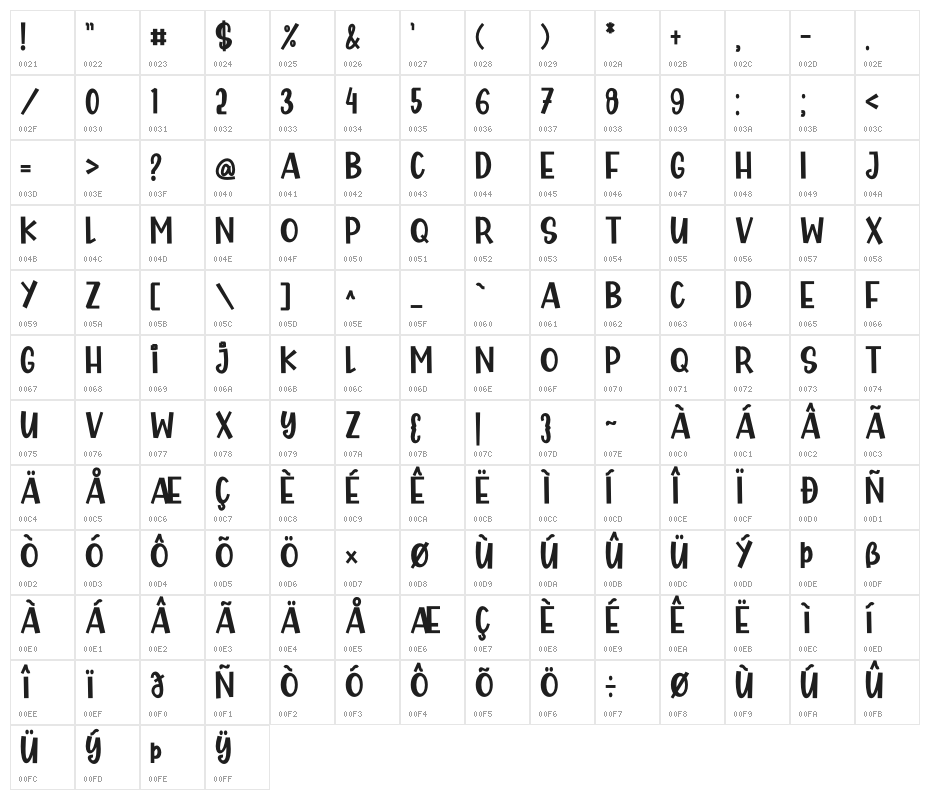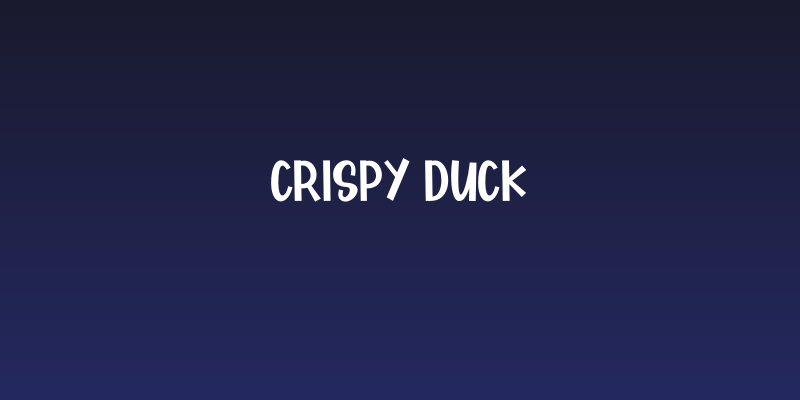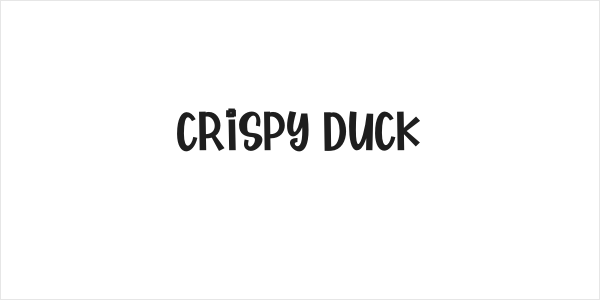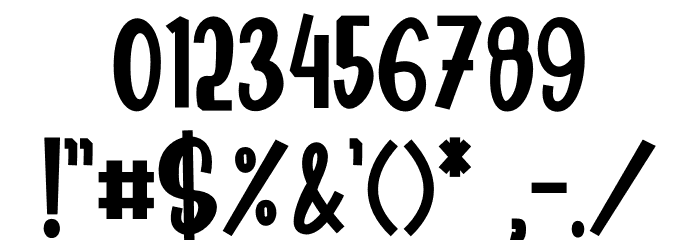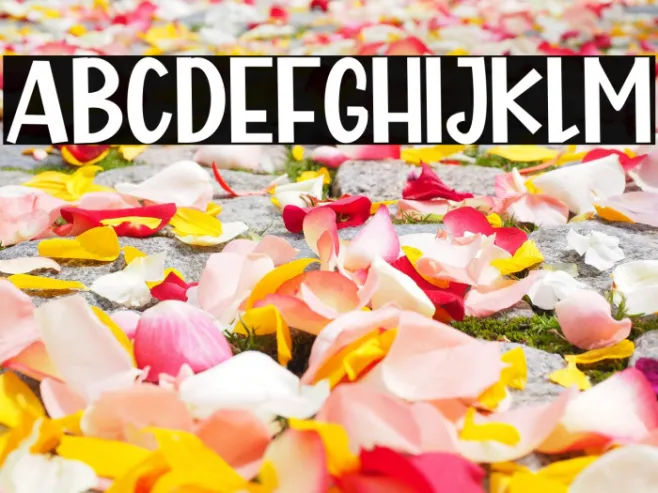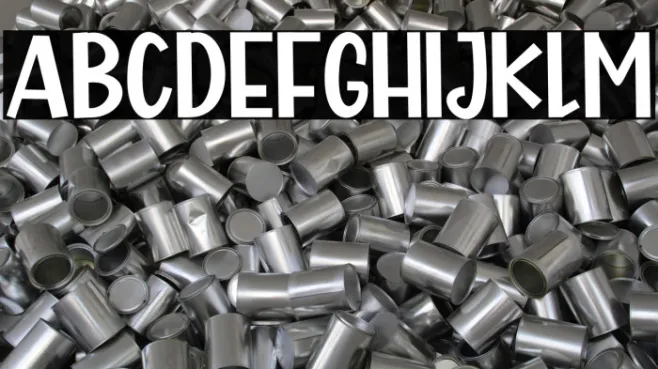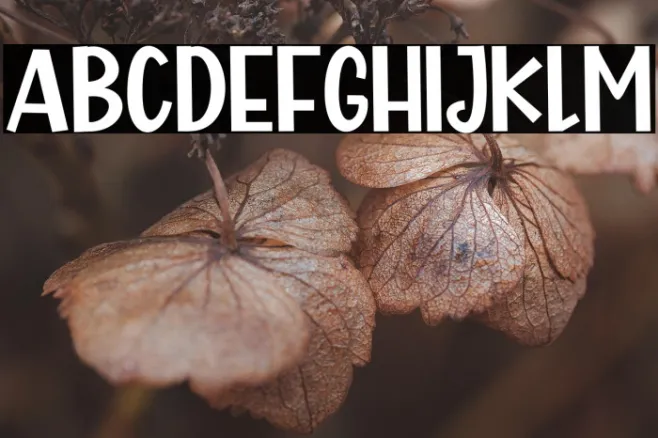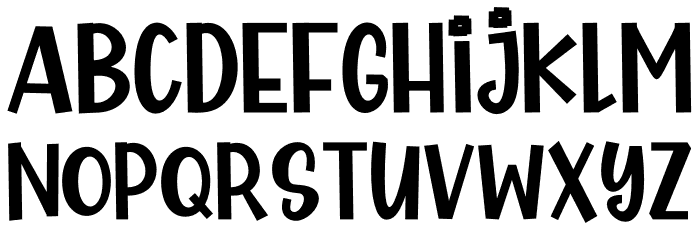
Crispy Duck Font
Crispy Duck Description
This font features a playful and bold design, characterized by its thick strokes and slightly irregular shapes that give it a hand-drawn appearance. The uppercase and lowercase letters maintain a consistent style, with rounded edges and a slight tilt, adding to its whimsical charm. The numerals and special characters follow the same aesthetic, ensuring a cohesive look across all text. Its bold presence makes it ideal for attention-grabbing headlines or creative projects that require a touch of personality.
| Overall Style | Playful, Hand-drawn |
| Proposed Projects | Ideal for children's books, playful branding, posters, and creative advertisements. |